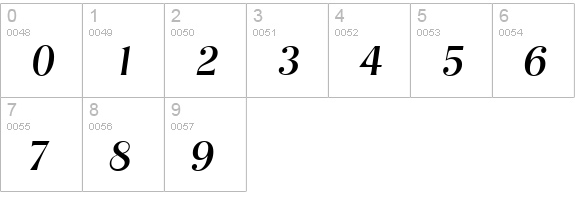
NashvilleSerial-Italic is a distinctive, italic variant in the NashvilleSerial typeface family \xE2\x80\x94 well suited to design and typography projects.
Introducing NashvilleSerial-Italic font, a sleek and stylish typeface perfect for adding a touch of sophistication to your designs. This elegant font features slanted italic characters that exude a sense of modernity and class. Whether you're working on a project that calls for a refined look or simply want to elevate your text with a touch of flair, NashvilleSerial-Italic is the perfect choice. And the best part? NashvilleSerial-Italic font is available for free download at FontsMarket.com! Don't miss out on this fantastic opportunity to enhance your designs with this beautiful font without breaking the bank. Download NashvilleSerial-Italic today and let your creativity shine!